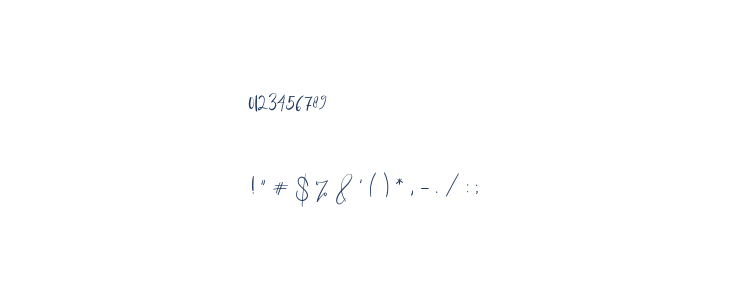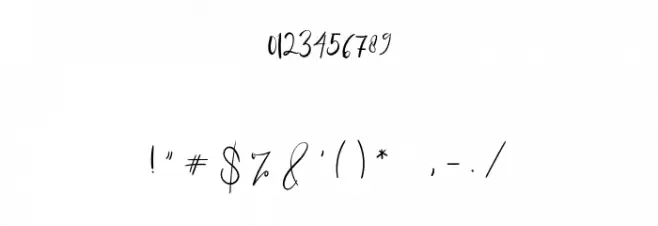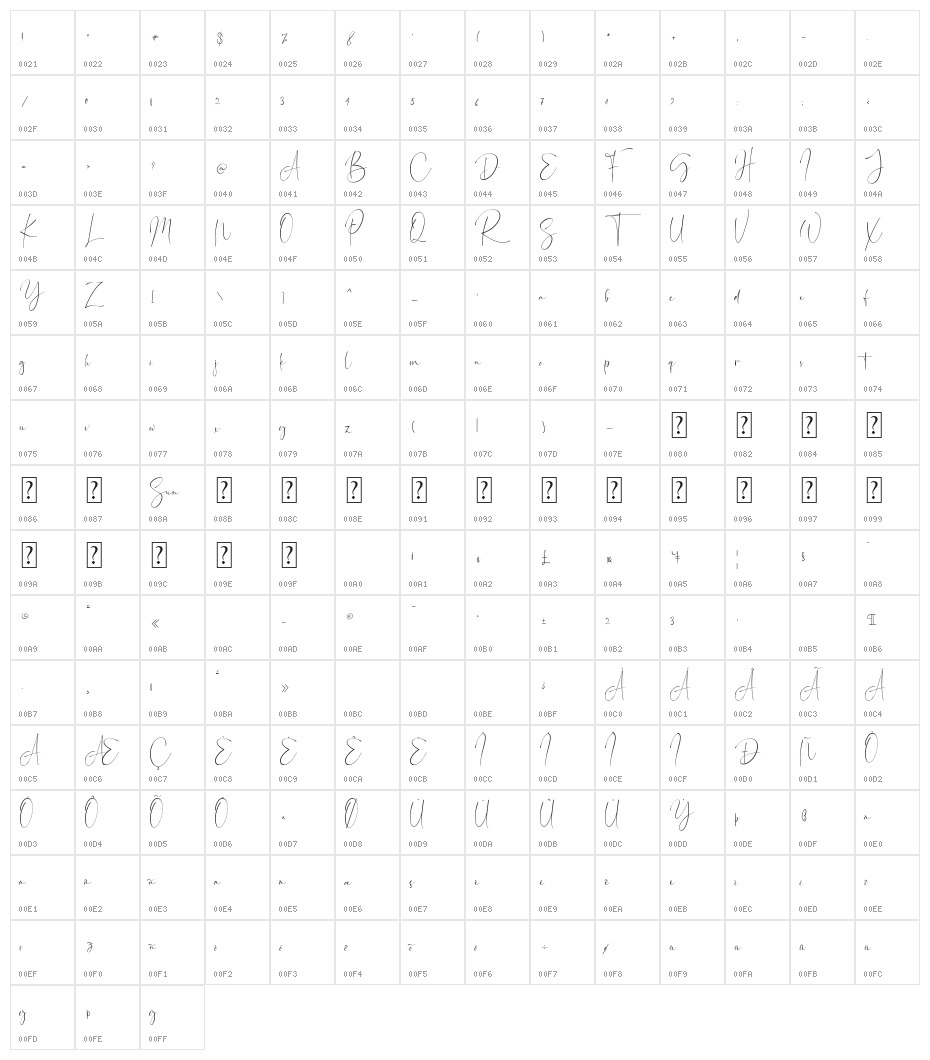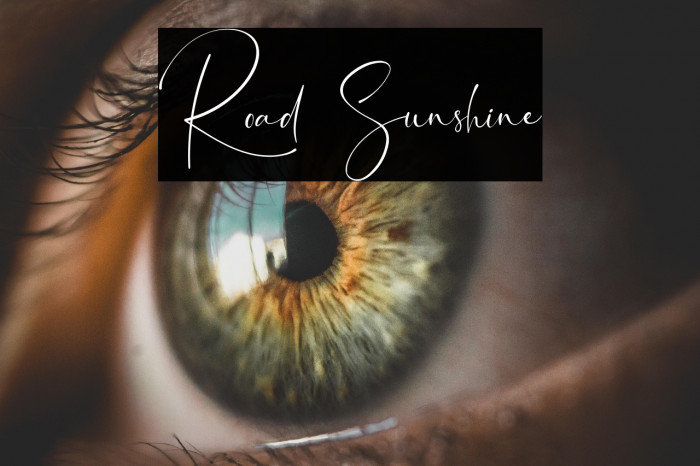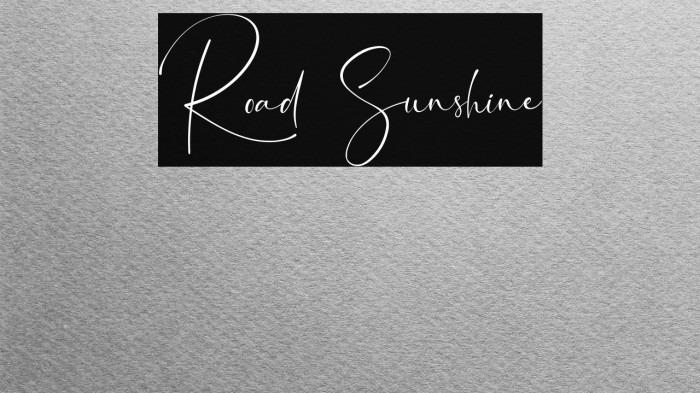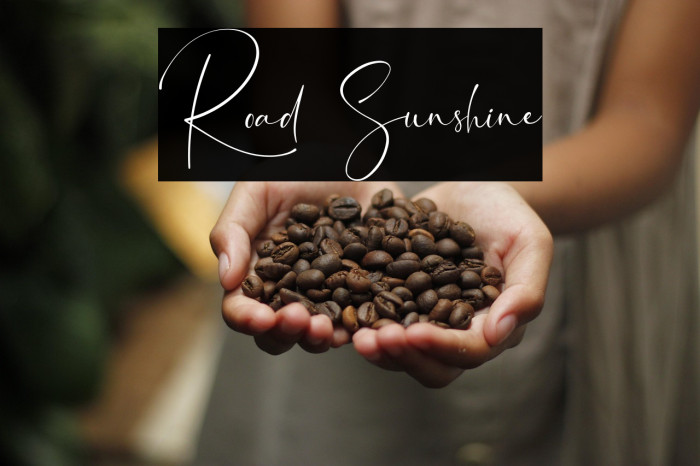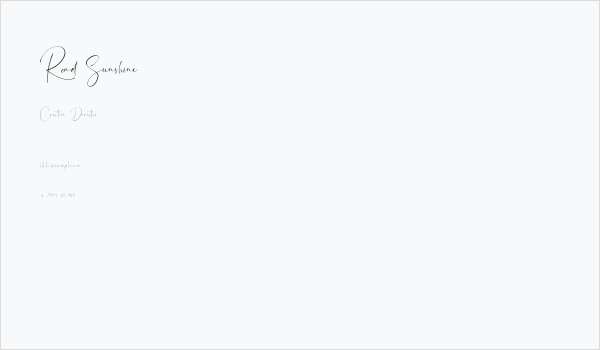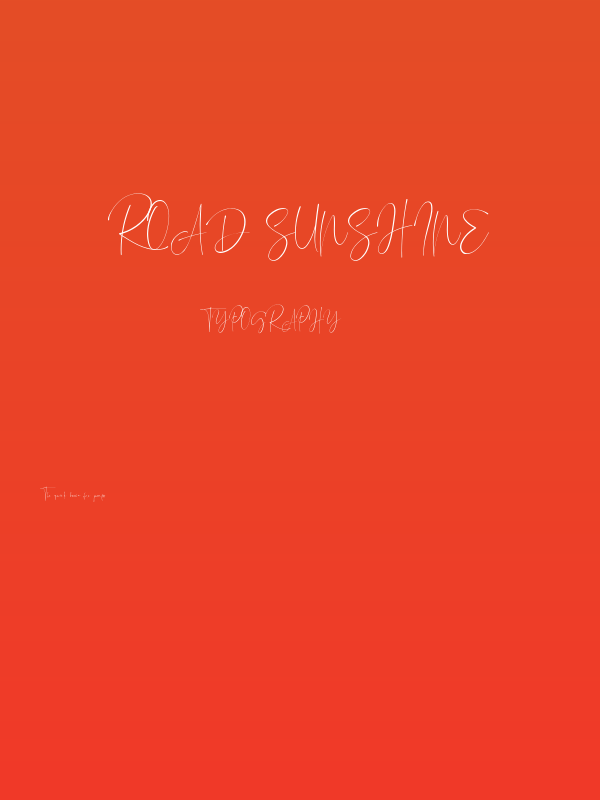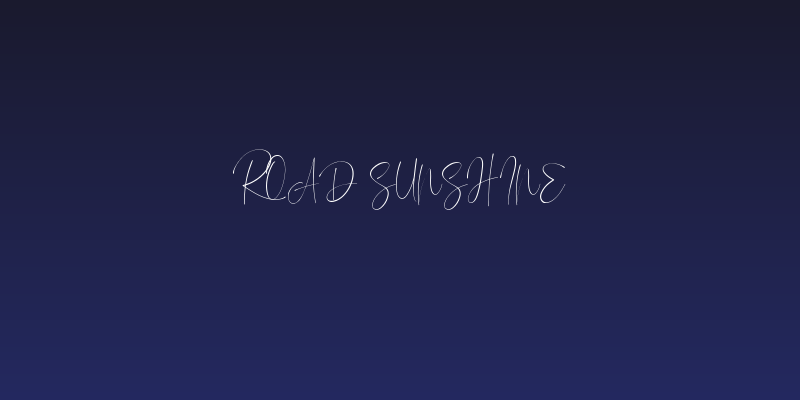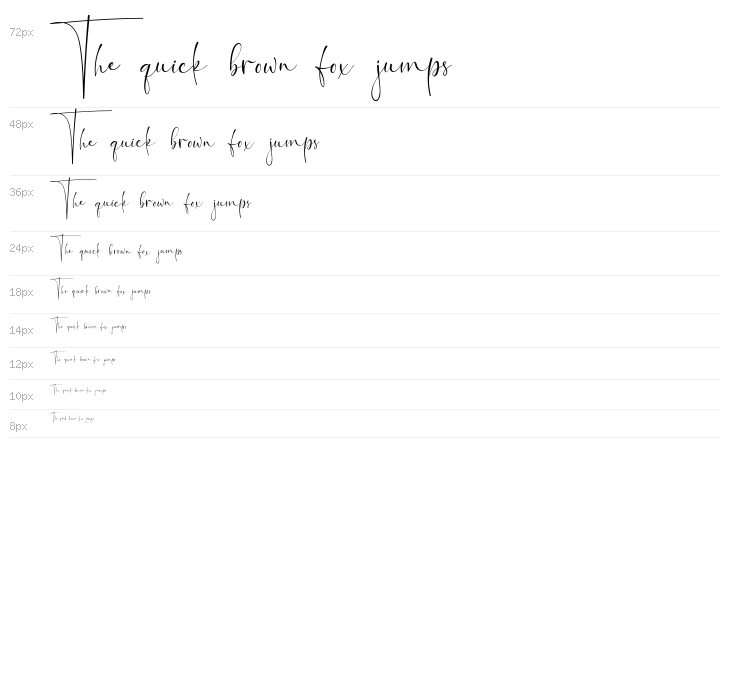
Road Sunshine Font
Road Sunshine Description
This font exudes a whimsical and elegant charm, characterized by its flowing, cursive style. The uppercase letters are tall and slender, with sweeping curves and loops that add a touch of sophistication. The lowercase letters maintain a consistent flow, with some characters featuring unique flourishes that enhance their visual appeal. The numerals are distinct and maintain the same elegant style, ensuring readability while adding a decorative touch. Special characters are thoughtfully designed to match the overall aesthetic, making this font versatile for various creative projects.